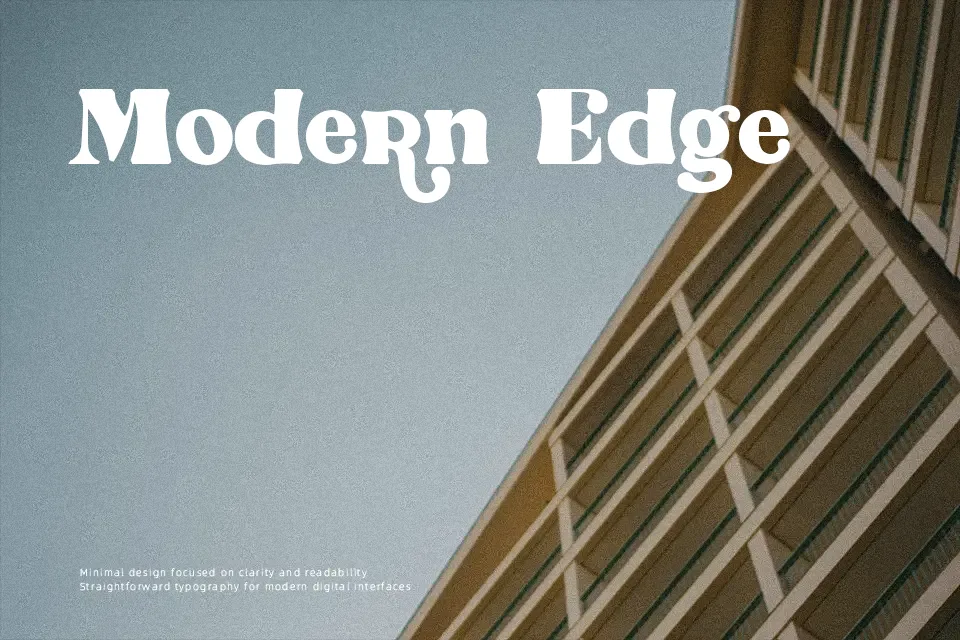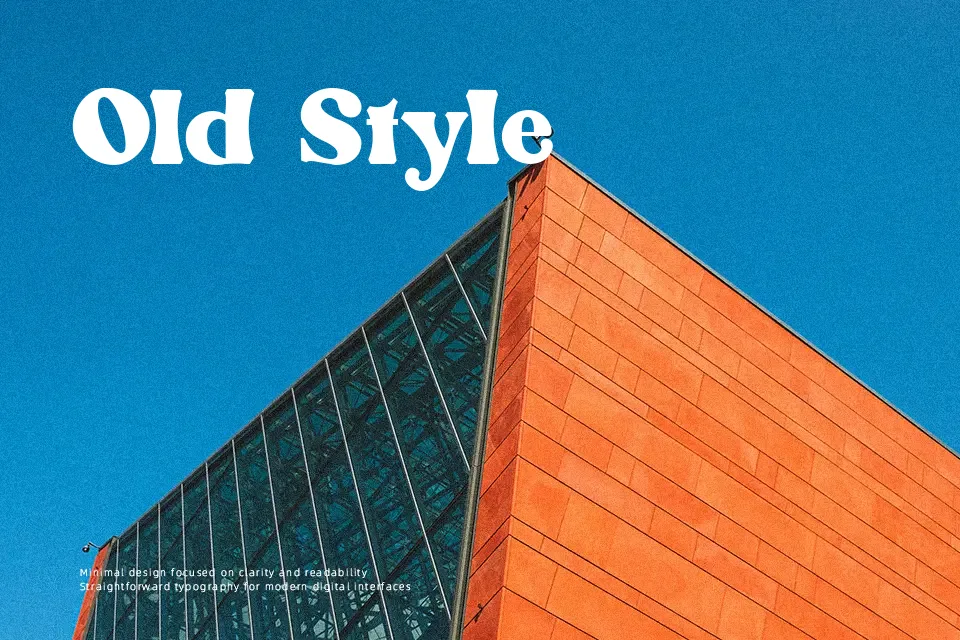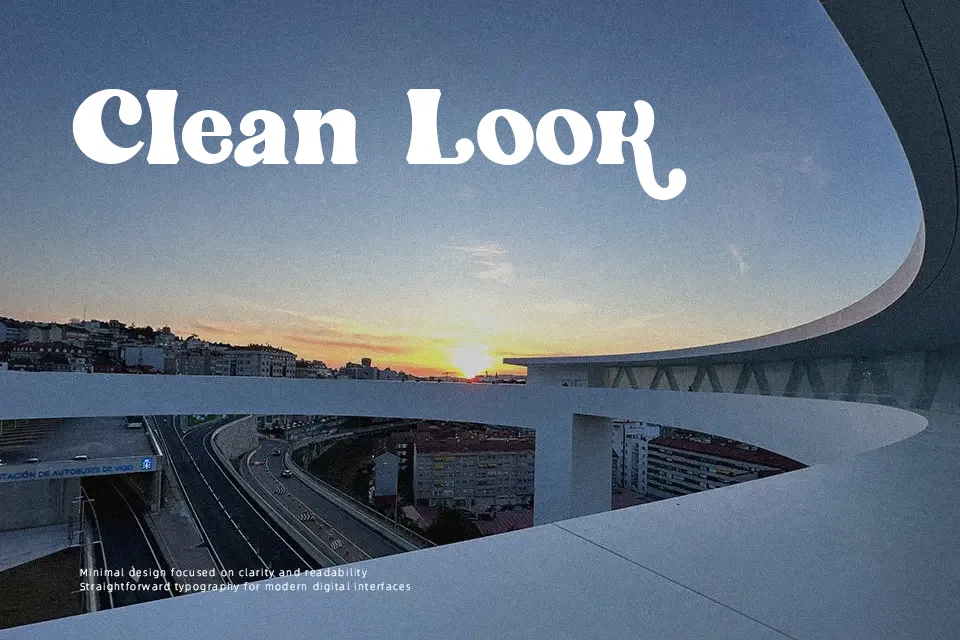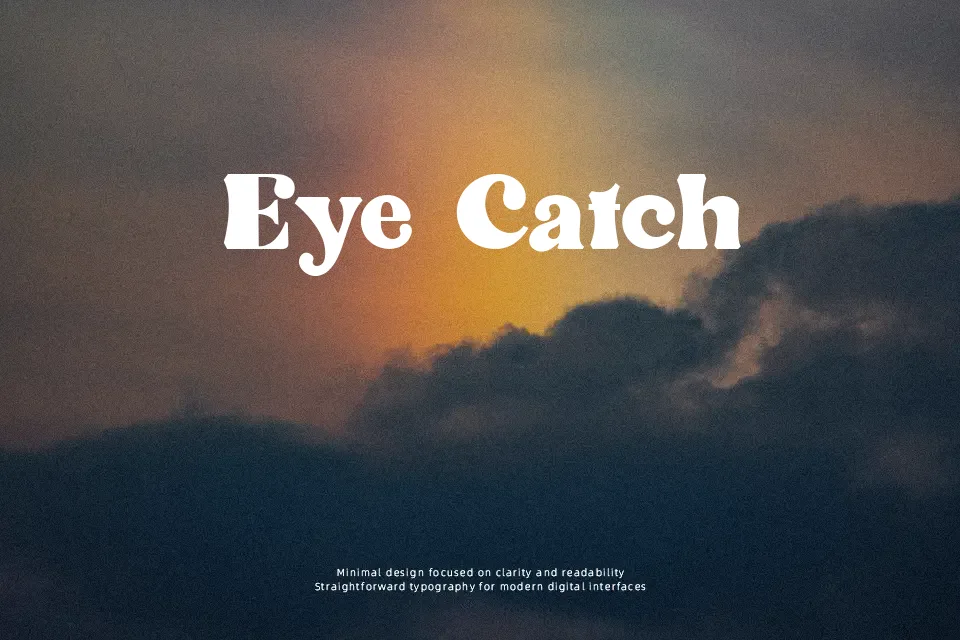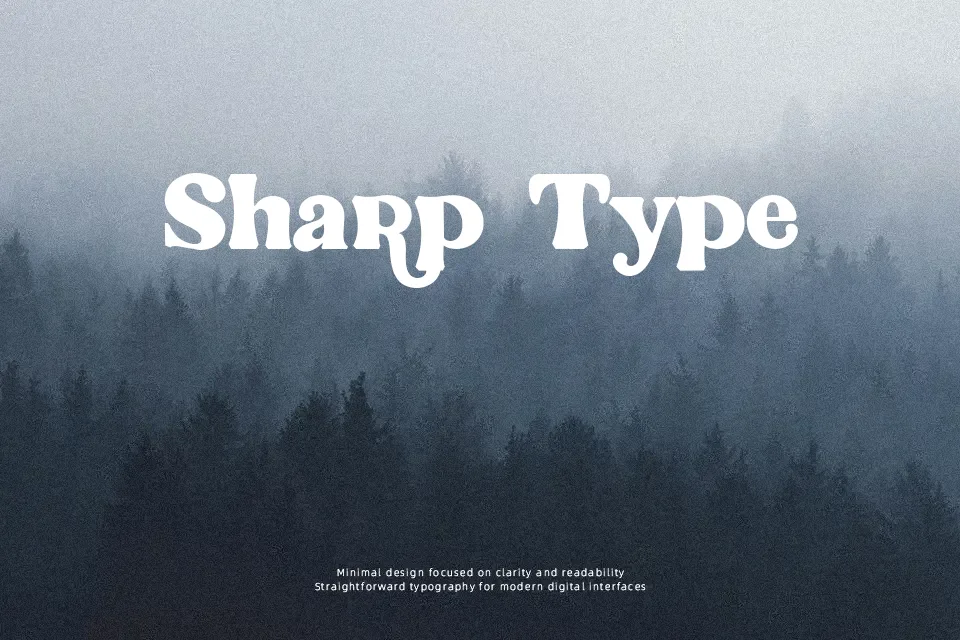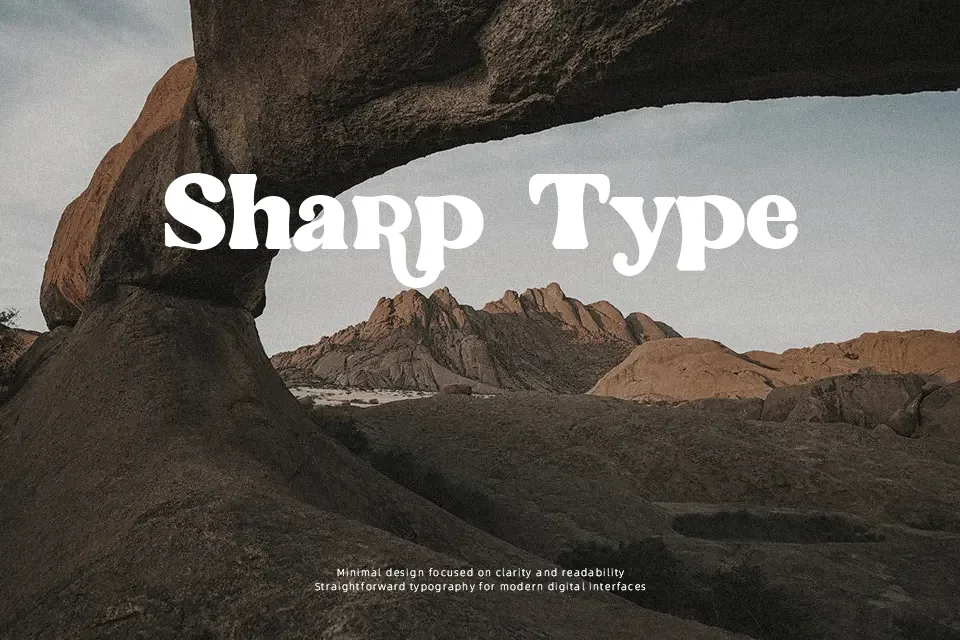
Antique Wonders Font
Designed by Typefactoryco
Antique Wonders features sturdy serif letterforms with noticeable contrast between thick and thin strokes, generous curves, and slightly condensed proportions that give headlines a confident, nostalgic feel. The spacing leans tight, so words cluster into striking blocks of type rather than airy lines, which works nicely for logos, covers, and short titles. It feels decorative and vintage rather than strictly formal, making it suitable for wedding suites, boutique branding, social media quotes, and fashion-themed layouts that need a bit of drama. However, the ornate details and heavier contrast make it tiring for running text or data-heavy layouts. It works well when you treat it as a focal accent, but it does not perform as cleanly in small sizes or dense paragraphs.
wedding invitation titles
boutique or fashion brand logos
magazine and brochure covers
social media quote graphics
long paragraph text or body copy
formal corporate reports and presentations
mobile app interfaces or small UI labels
data-heavy documents and spreadsheets
Perfect for branding, invitation, and logo, with a artistic and decorative style.